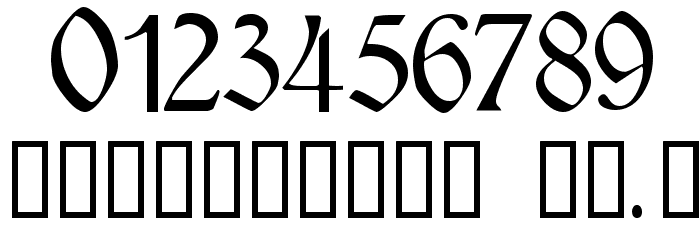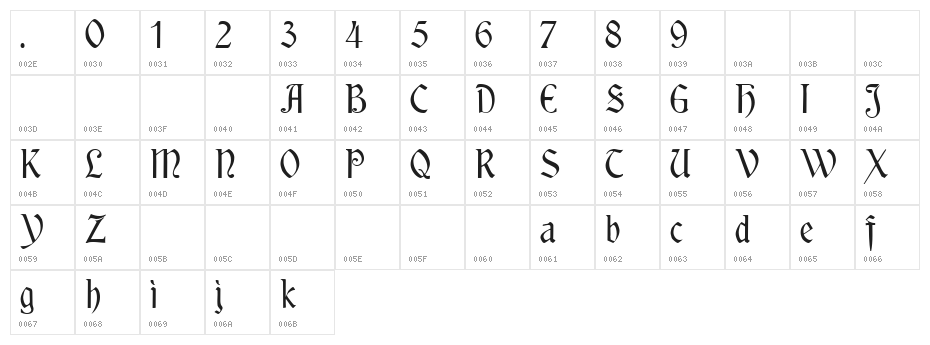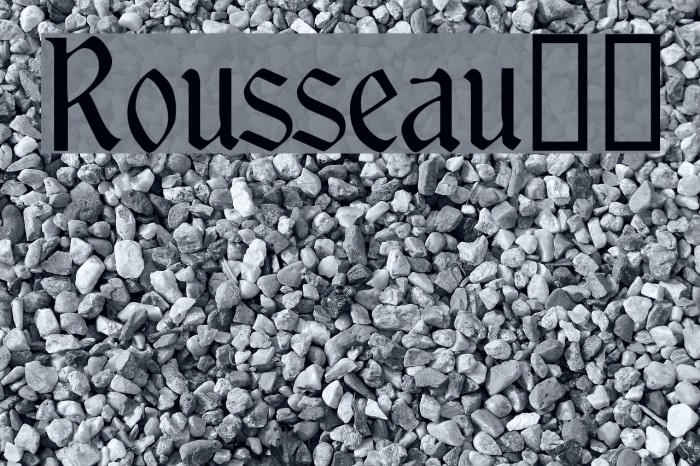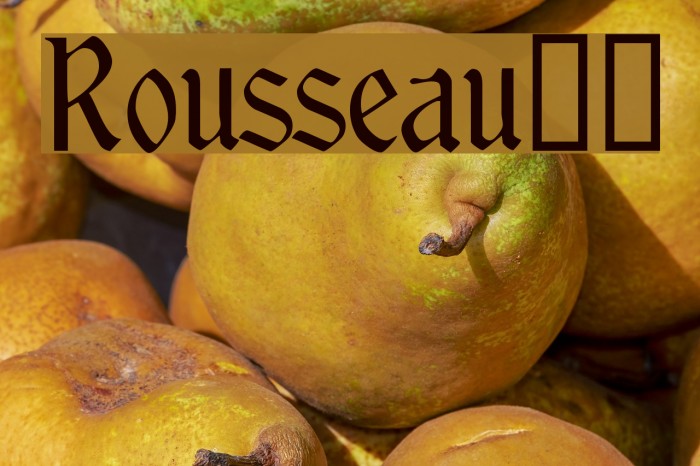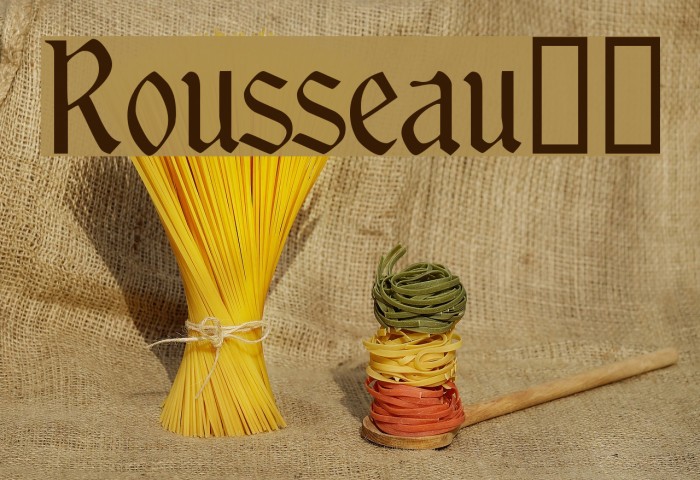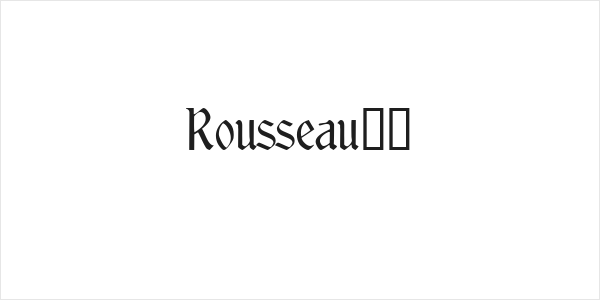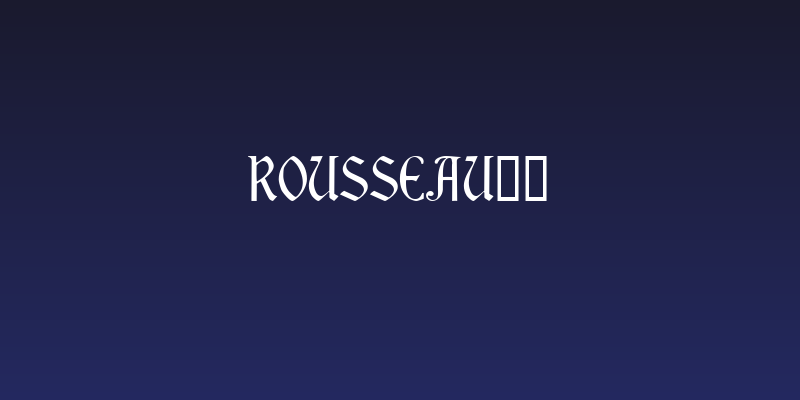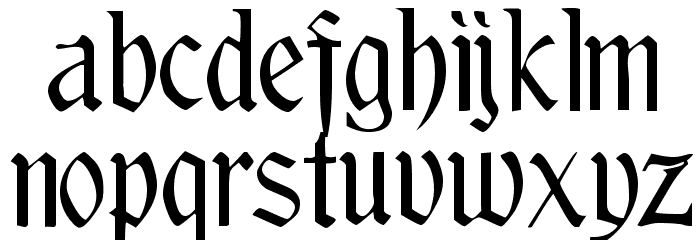
Rousseau!" Font
Rousseau!" Description
This font features a classic blackletter style, characterized by its ornate and intricate design. The uppercase letters exhibit sharp, angular lines with a distinct medieval flair, while the lowercase letters maintain a consistent style with slightly more rounded edges. The numerals are bold and follow the same decorative theme, providing a cohesive look across all characters. The font's unique style is reminiscent of traditional calligraphy, making it suitable for projects that require a historical or formal aesthetic. The special characters are designed to match the overall theme, ensuring uniformity throughout the typeface.